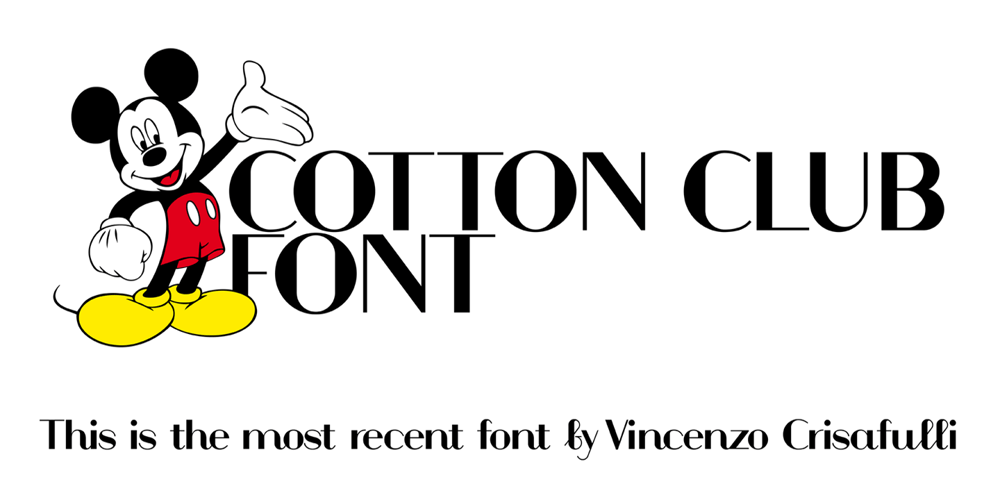
Cotton Club Font Family was designed by Vincenzo Crisafulli and published by Vincenzo Crisafulli. Cotton Club contains 2 styles and family package options. Cotton Club remembers the fonts of the thirties of the last century and the Bodoni, but it does not present graces: it is a sans serif. It has 360 glyphs and is composed of two regular and italic styles. Cotton Club is characterized by a high contrast between thick and thin strokes. The emphasized signs give the font an essential, sharp and elegant look. The Italic style of the Cotton Club refers to handwriting and this is noticeable in the ligatures obtained with kerning. The name of the font, “Cotton Club,” refers to the famous Jazz Club in New York, in Harlem, active in the twenties and thirties, during and after Prohibition. At that time the Bodoni, in its many derivations, was widely used not only in lead composition, but also in neon signs, plaques, posters, as well as in many other applications. Redesigning a new font that brings back to those years wants to be, therefore, a tribute and a reinterpretation of the graphics of that period as well as, it is understood, to the glorious Bodoni.Supported LanguagesBulgaro, Bosnian, Catalan, Czech, Danish, German, English, Spanish, Estonian, Finnish, French, Irish, Croatian, Hungarian, Icelandic, Italian, Lithuanian, Latvian, Maltese, Dutch, Norwegian, Polish, Portuguese, Romanian, Slovak, Slovenian, Albanian, Serbian, Swedish, Turkish.Vincenzo Crisafulli font designerVincenzo Crisafulli graduated from the Faculty of Architecture in Palermo and works as a graphic designer. He has been designing fonts since 1996 and has published with T26 (Type-Foundry, digital foundry in Chicago-California USA): Crisafulli, Chocolat, LST, Luminaria, and Stitching; with MyFonts: Rétrospectif, Bella Copy, Jasmin and Noahs Ark.